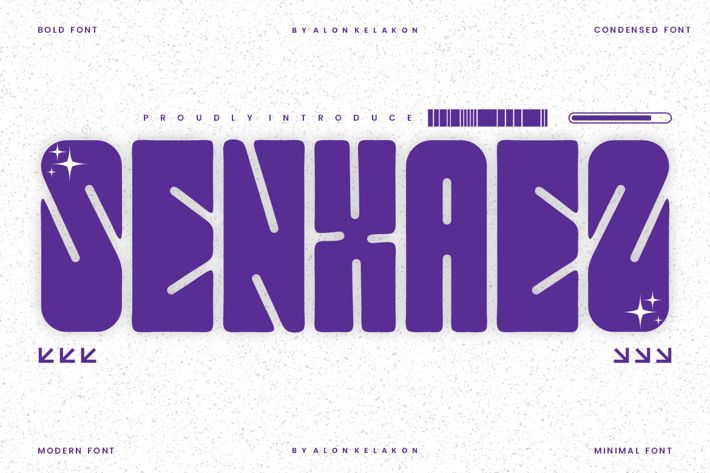
Senxaez - Bold Condensed Font
Senxaez Font is unique . Ready to use for your design like labeling, movie sceen, poster, movie title, gigs, album covers, logos, and much more.